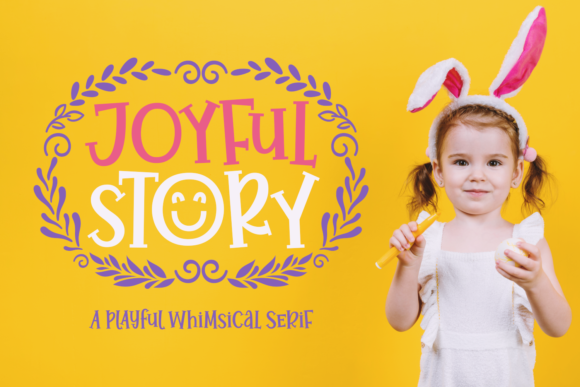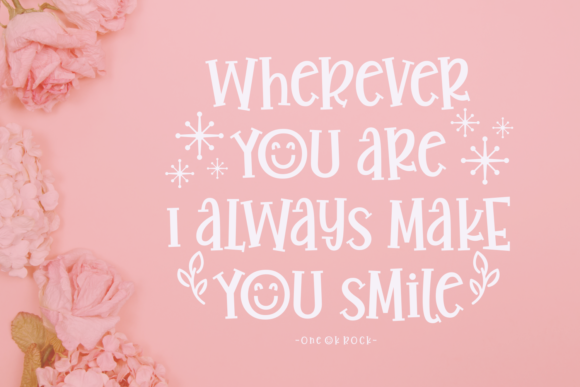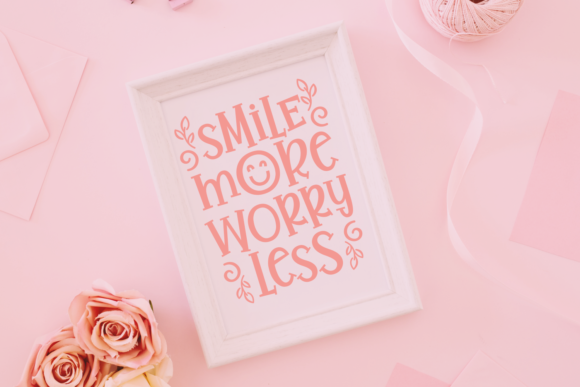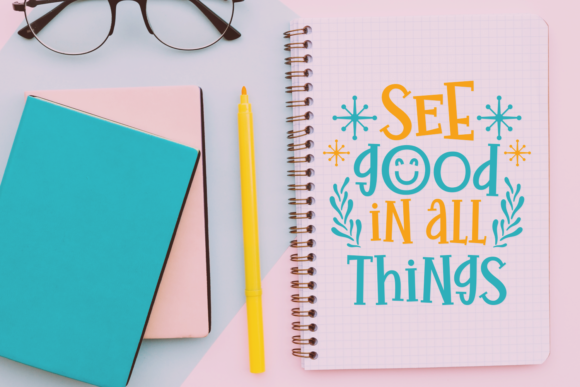
Introduction to Joyful Story Font
Joyful Story is an incredibly playful and whimsical font that will turn any design project into a stand-out.
Joyful Story is an incredibly playful and whimsical font that will turn any design project into a stand-out!